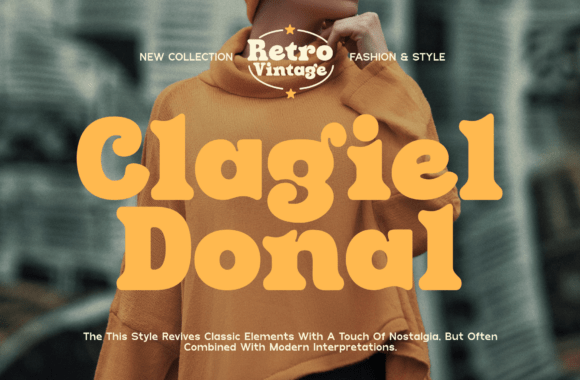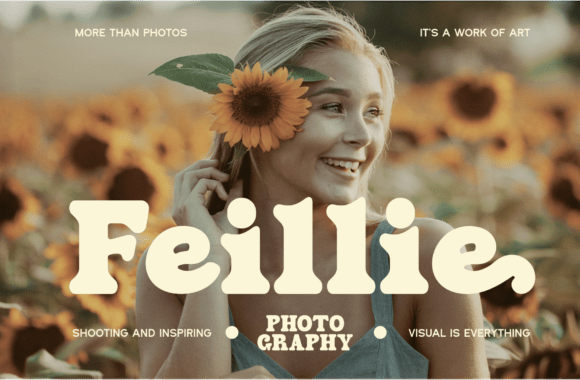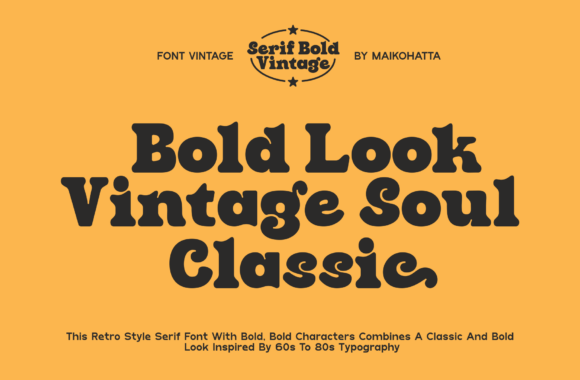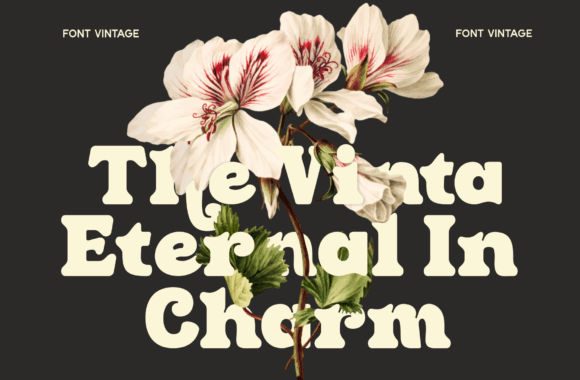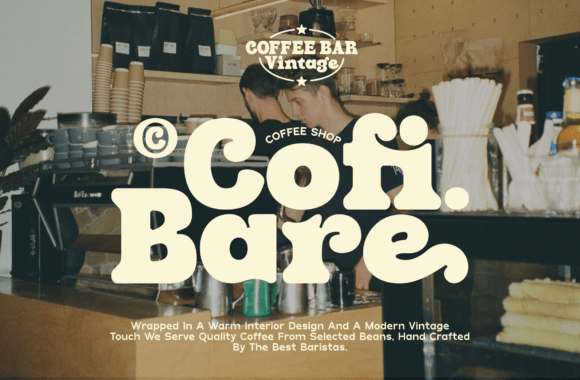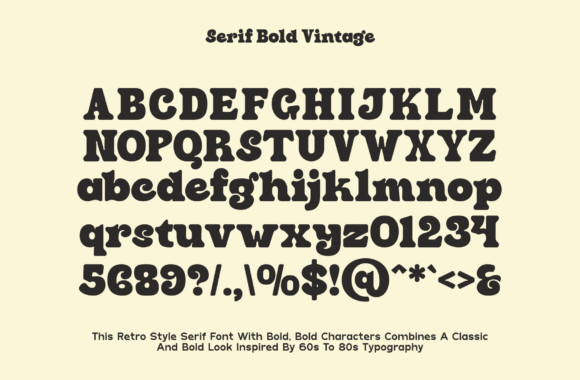
Introducing Clin Fiaro: The Ultimate Serif Bold Vintage Font
Are you tired of using the same old fonts in your designs? Look no further! We’re excited to introduce Clin Fiaro, a stunning serif bold vintage font that’s sure to elevate your typography game. With its unique blend of classic and modern elements, Clin Fiaro is the perfect choice for designers and crafters looking to add a touch of sophistication to their work.
What Makes Clin Fiaro Special?
Clin Fiaro features a balanced proportion of stroke thickness and fineness, creating attractive and easy-to-read visuals. This modern serif style is often characterized by a bold distinction between thick and thin lines, providing a touch that is understated but still stands out. The result is a font that’s both elegant and eye-catching, making it perfect for a wide range of design applications.
Key Features of Clin Fiaro
• Serif Bold Vintage Style: Clin Fiaro boasts a classic serif style with a bold and vintage twist, making it perfect for designs that require a touch of nostalgia and sophistication.
• Balanced Stroke Thickness: The font features a balanced proportion of stroke thickness and fineness, creating visually appealing and easy-to-read text.
• Modern and Classic Elements: Clin Fiaro seamlessly blends modern and classic elements, making it a versatile font that can be used in a wide range of design applications.
• Easy to Read: The font’s clear and balanced design makes it easy to read, even at smaller font sizes.
Why Choose Clin Fiaro?
With so many fonts available, why choose Clin Fiaro? Here are just a few reasons why designers and crafters are falling in love with this stunning font:
• Unique and Versatile: Clin Fiaro is a one-of-a-kind font that can be used in a wide range of design applications, from branding and advertising to packaging and digital design.
• High-Quality Design: The font is meticulously designed to ensure that every letterform is of the highest quality, making it perfect for professional designers and crafters.
How to Use Clin Fiaro in Your Designs
Clin Fiaro is a versatile font that can be used in a wide range of design applications. Here are a few ideas to get you started:
• Branding and Advertising: Use Clin Fiaro to create stunning brand identities, advertisements, and marketing materials that stand out from the crowd.
• Packaging Design: Add a touch of sophistication to your packaging designs with Clin Fiaro, perfect for luxury brands and high-end products.
• Digital Design: Use Clin Fiaro in your digital designs, such as website headers, social media graphics, and email marketing campaigns.
Font Name Clin Fiaro Font
Author maikofarazhatta
In conclusion, Clin Fiaro is a game-changing serif bold vintage font that’s sure to elevate your typography game. With its unique blend of classic and modern elements, balanced stroke thickness, and high-quality design, Clin Fiaro is the perfect choice for designers and crafters looking to add a touch of sophistication to their work. Try Clin Fiaro today and experience the difference for yourself!